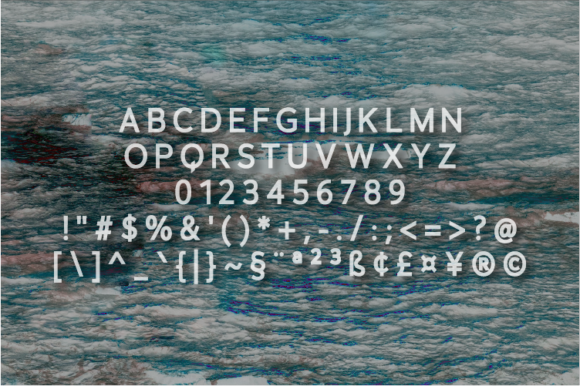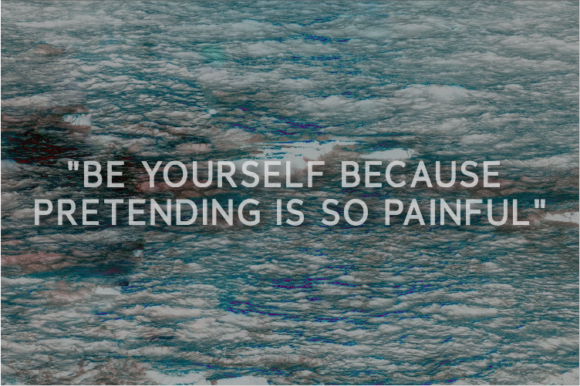
Discover the Elegance of Georguine Font: A Modern Sans Serif Marvel
In the world of typography, fonts play a crucial role in conveying messages, evoking emotions, and creating lasting impressions. For designers and crafters seeking a unique and sophisticated sans serif font, Georguine is an exceptional choice. This elegant font seamlessly blends traditional influences with a contemporary aesthetic, offering maximum versatility and an exquisite, yet subtle look.
The Essence of Georguine Font
Georguine is a distinct sans serif font that stands out in the realm of modern typography. Its design is rooted in traditional influences, carefully crafted to evoke a sense of classic sophistication while maintaining a fresh and contemporary feel. This balance of old and new makes Georguine an ideal choice for a wide range of design projects, from branding and advertising to packaging and digital media.
Key Features of Georguine Font
- Elegant and Refined: Georguine boasts a refined and elegant appearance, making it perfect for designs that require a touch of sophistication.
- Versatile: The font’s versatility allows it to be used across various mediums, including print, digital platforms, and signage.
- Distinctive Sans Serif: Georguine’s sans serif design offers a clean and modern look, making it highly legible and suitable for both headings and body text.
- Traditional Influences: The font’s traditional influences provide a sense of timelessness and classic appeal, setting it apart from more generic sans serif fonts.
- Contemporary Aesthetic: Georguine’s contemporary aesthetic ensures it remains relevant and appealing in today’s design landscape.
Applications of Georguine Font
Georguine’s unique blend of elegance and versatility makes it suitable for a variety of applications. Here are some of the ways designers and crafters can utilize this exceptional font:
- Branding and Logo Design: Georguine is perfect for creating sophisticated brand identities and logos that require a touch of elegance.
- Advertising and Marketing Materials: The font’s refined appearance makes it ideal for use in advertising and marketing materials, such as brochures, flyers, and posters.
- Packaging Design: Georguine’s distinctive sans serif design and elegant feel make it a great choice for product packaging, adding a touch of sophistication to any product.
- Digital Media: The font’s legibility and clean design make it suitable for use in digital media, including websites, mobile apps, and social media graphics.
- Signage and Display: Georguine’s versatility extends to signage and display applications, where its elegant and refined appearance can make a lasting impression.
Tips for Using Georguine Font Effectively
To maximize the impact of Georguine font in your designs, consider the following tips:
- Pair with Complementary Fonts: Combine Georguine with complementary fonts to create visual interest and hierarchy in your designs.
- Experiment with Weights and Styles: Take advantage of Georguine’s various weights and styles to add depth and versatility to your designs.
- Consider Context: Ensure that Georguine aligns with the tone and purpose of your design project, whether it’s for a luxury brand or a more casual application.
- Pay Attention to Legibility: While Georguine is highly legible, ensure that your design choices do not compromise readability, especially in digital applications.
Georguine font offers a unique blend of elegance, versatility, and sophistication, making it an exceptional choice for designers and crafters seeking a distinctive sans serif font. By understanding its key features, applications, and effective usage tips, designers can unlock the full potential of Georguine and create stunning designs that leave a lasting impression.
Whether you’re working on a branding project, creating advertising materials, or designing digital content, Georguine is a reliable and stylish choice that can elevate your designs to new heights. Embrace the elegance of Georguine font and discover a world of creative possibilities.